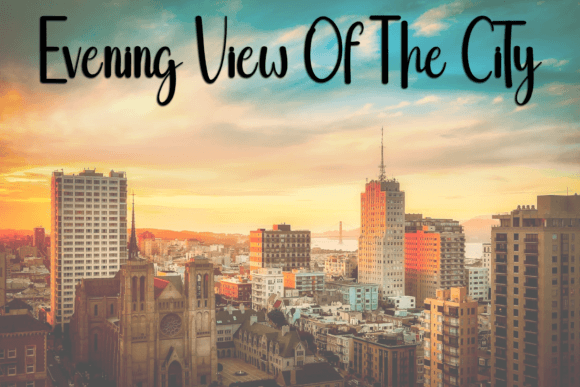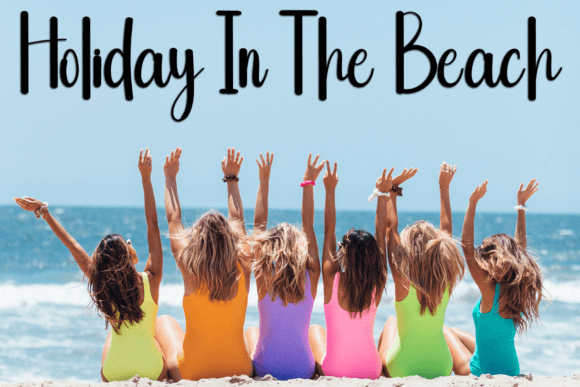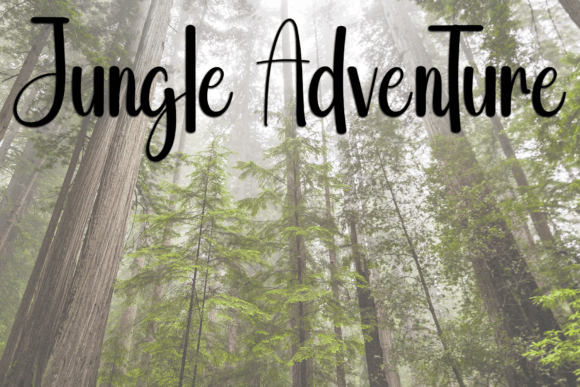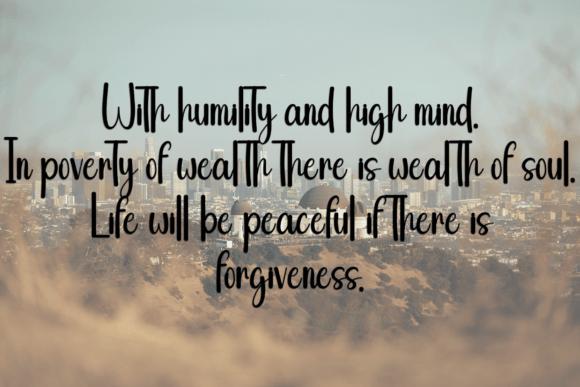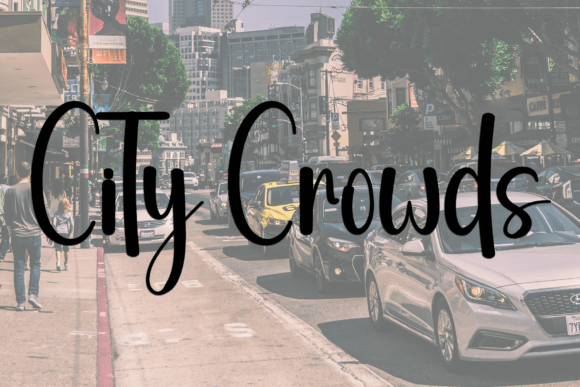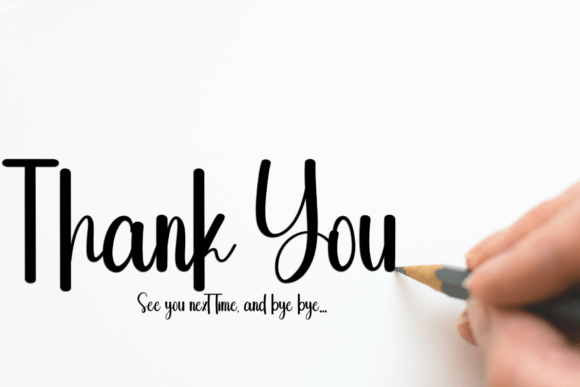
Introducing California Font: The Ultimate Handwritten Font for Creative Designs
Are you tired of using the same old fonts in your designs? Look no further! California Font is here to revolutionize your creative projects with its cool, simple, and playful handwritten style. This incredibly versatile font is perfect for designers and crafters who want to elevate their designs to the highest levels.
What is California Font?
California Font is a modern, handwritten font that exudes a carefree and laid-back vibe. Its simplicity and playfulness make it an excellent choice for a wide range of designs, from branding and advertising to packaging and digital media. Whether you’re creating a logo, poster, or social media graphic, California Font is sure to add a touch of personality and whimsy to your work.
Key Features of California Font
- Cool and Playful: California Font has a relaxed, casual feel that’s perfect for designs that require a youthful and energetic vibe.
- Simple and Elegant: Despite its playful nature, California Font has a clean and elegant aesthetic that works well for a variety of design applications.
- Incredibly Versatile: This font can be used for headlines, body text, and even captions, making it an excellent addition to any design project.
- Easy to Read: California Font is highly legible, even at small sizes, ensuring that your message gets across clearly and effectively.
How to Use California Font in Your Designs
California Font is an incredibly versatile font that can be used in a wide range of design applications. Here are a few ideas to get you started:
- Branding and Logo Design: Use California Font to create a unique and memorable logo that reflects your brand’s personality.
- Posters and Flyers: Add a playful touch to your posters and flyers with California Font, making them stand out from the crowd.
- Social Media Graphics: Use California Font to create engaging social media graphics that showcase your brand’s personality and style.
- Packaging Design: Add a personal touch to your packaging design with California Font, making your products stand out on store shelves.
Why Choose California Font?
With so many fonts available, why choose California Font? Here are just a few reasons why this font stands out from the rest:
- Unique Style: California Font has a unique and distinctive style that’s sure to set your designs apart from the crowd.
- Ease of Use: This font is incredibly easy to use, even for designers who are new to handwritten fonts.
- Highly Legible: California Font is highly legible, even at small sizes, ensuring that your message gets across clearly and effectively.
- Versatility: This font can be used in a wide range of design applications, making it an excellent addition to any design project.
In conclusion, California Font is an excellent choice for designers and crafters who want to add a touch of personality and whimsy to their designs. With its cool, simple, and playful handwritten style, this font is sure to elevate your designs to the highest levels. Whether you’re creating a logo, poster, or social media graphic, California Font is the perfect choice for any design project.